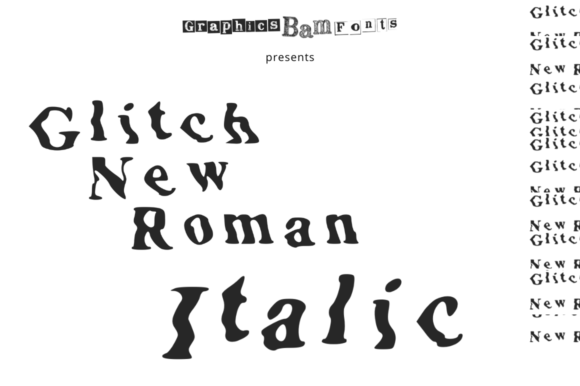
Introducing the Glitch New Roman Italic Font, the perfect font to add a touch of retro futurism to your next design project. With its glitched-up characters and classic typeface roots, this display font is sure to make a statement.
Whether you're a hacker, a web nerd, or simply a glitch art enthusiast, the Glitch New Roman Italic Font is the perfect choice for you. Its versatile style can be used to create a wide range of designs, from eye-catching headlines to edgy logos.
Get ready to glitch up your next design project with the Glitch New Roman Italic Font! Its distorted characters and classic typeface roots make it the perfect choice for any hacker, web nerd, or glitch art lover.
This display font is sure to make a statement, whether you're using it for headlines, logos, or anything else. Plus, it's available for both Mac and Windows, so you can start using it right away.